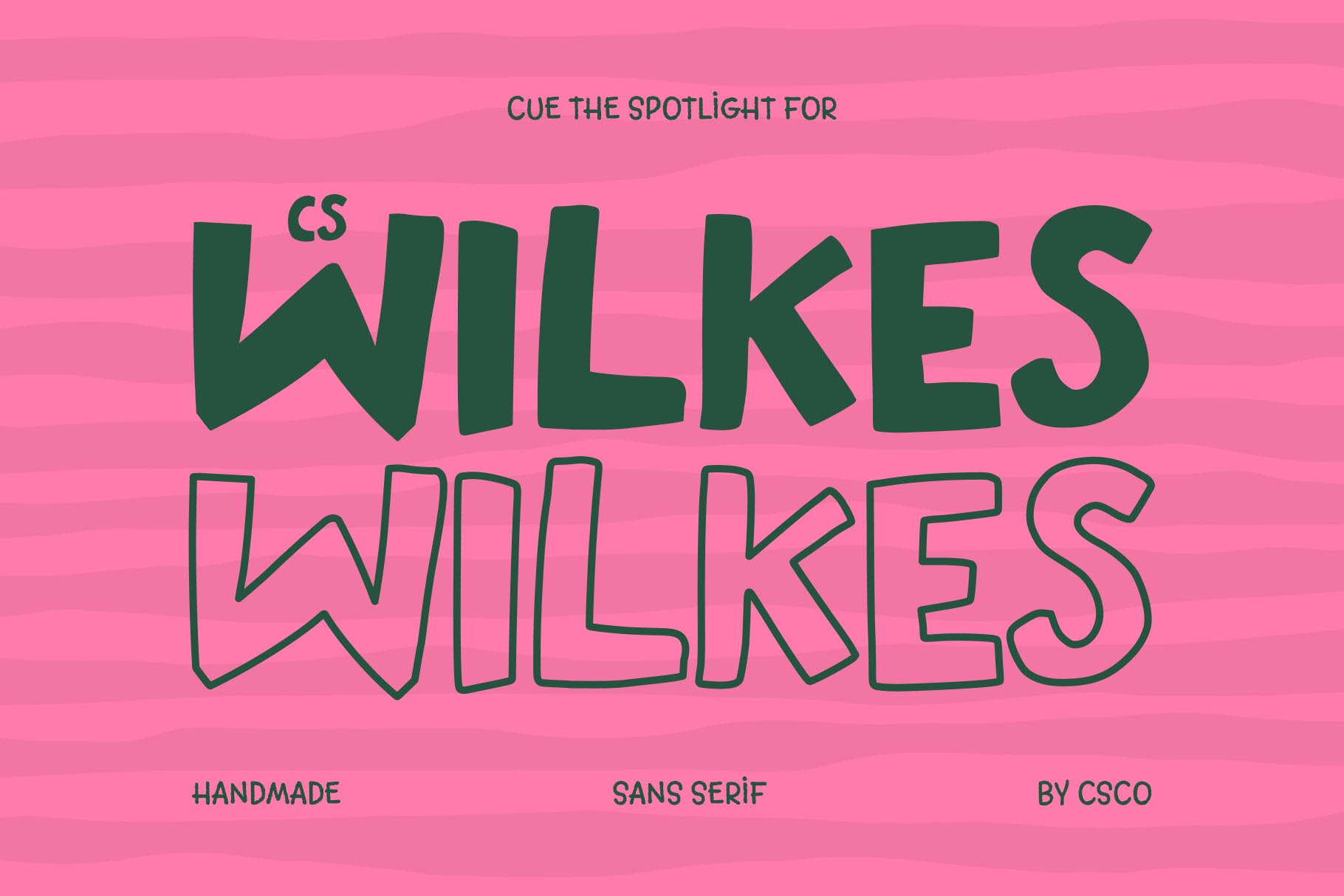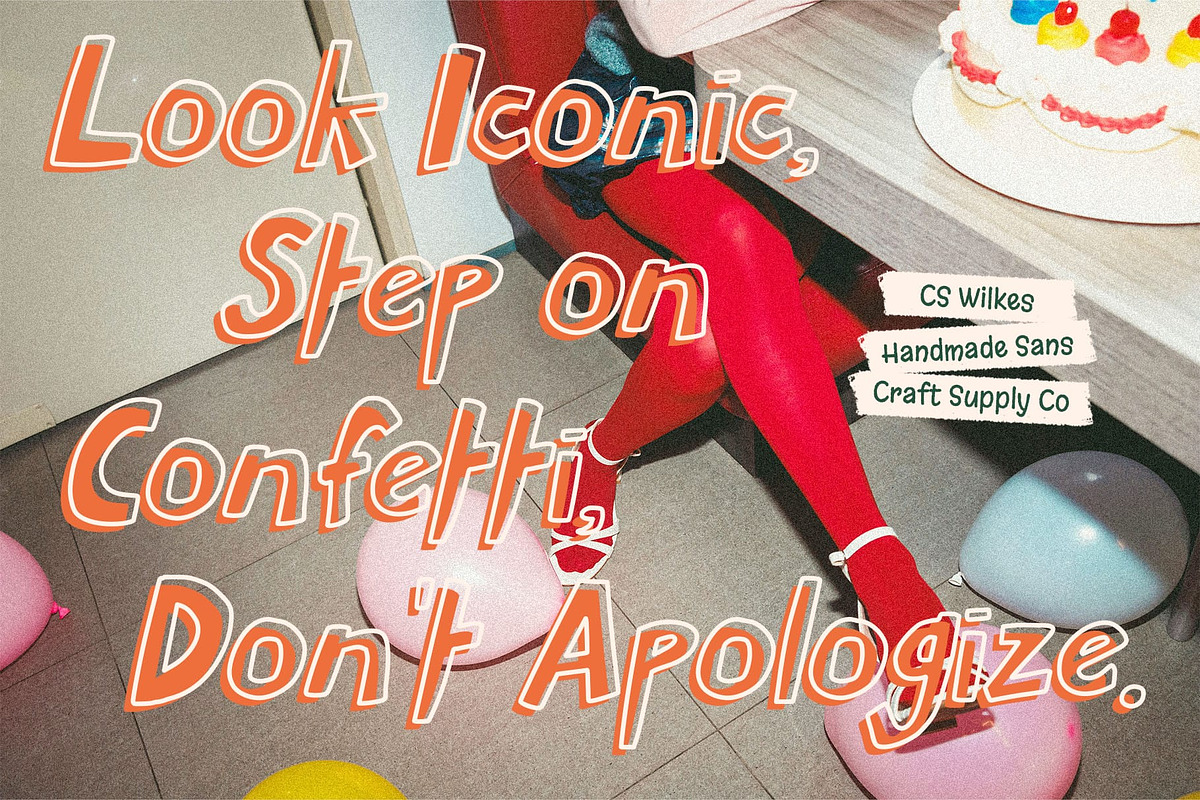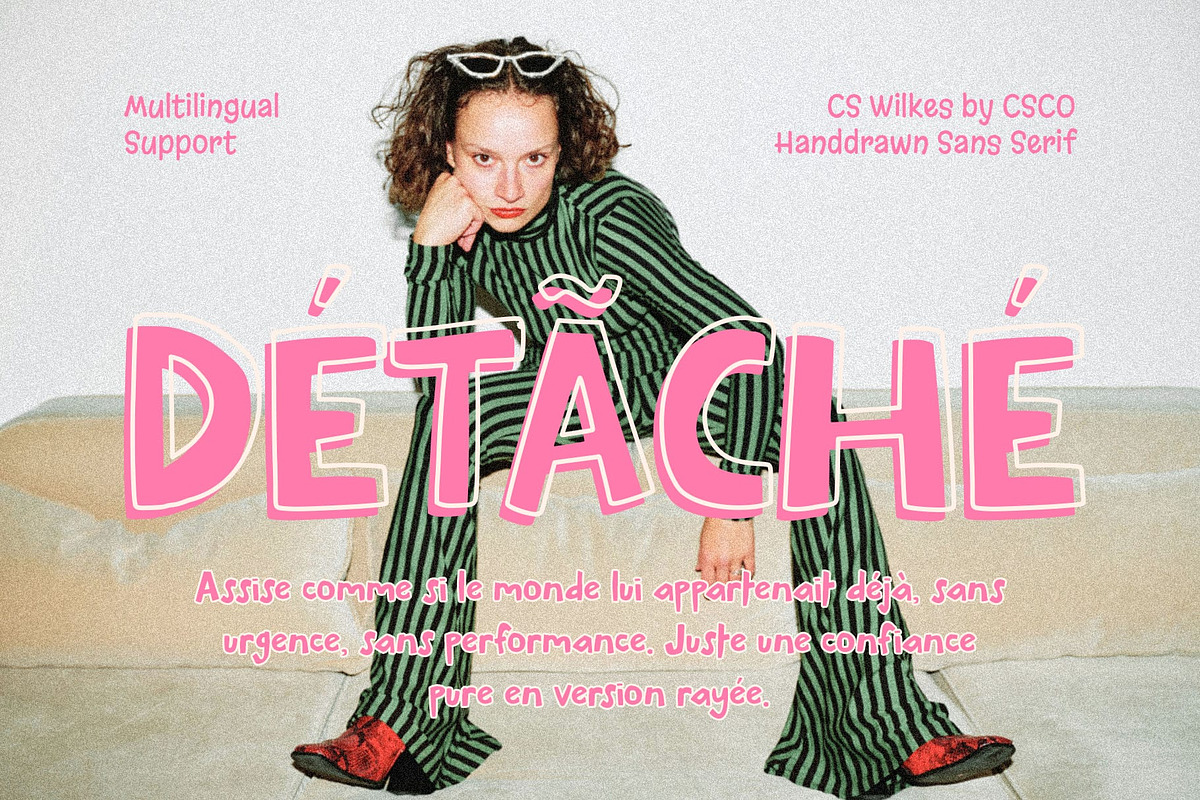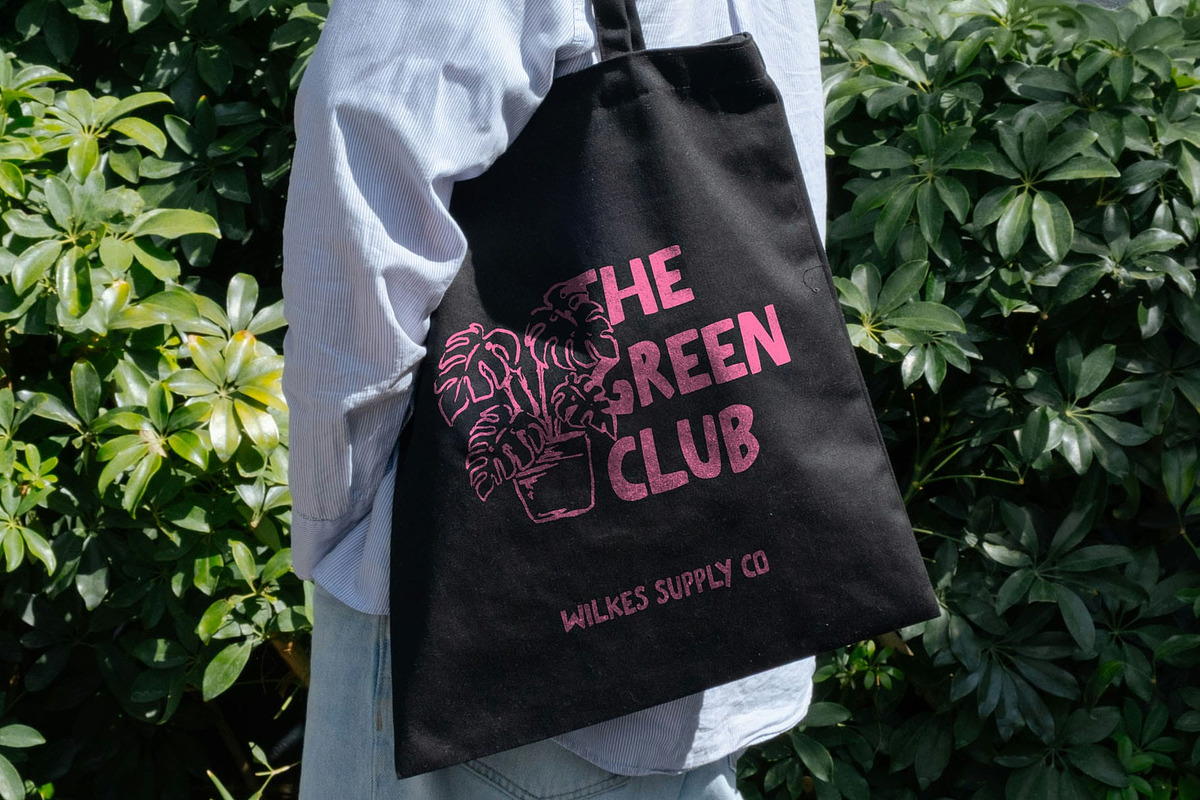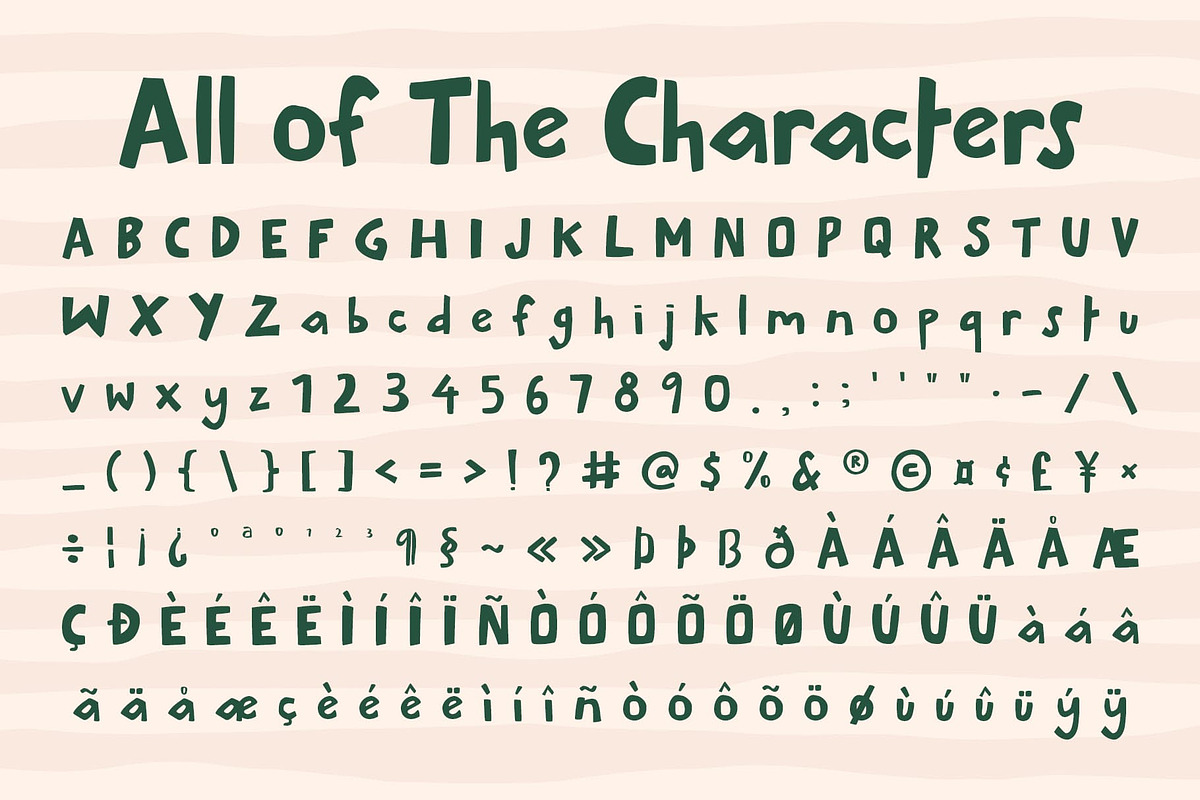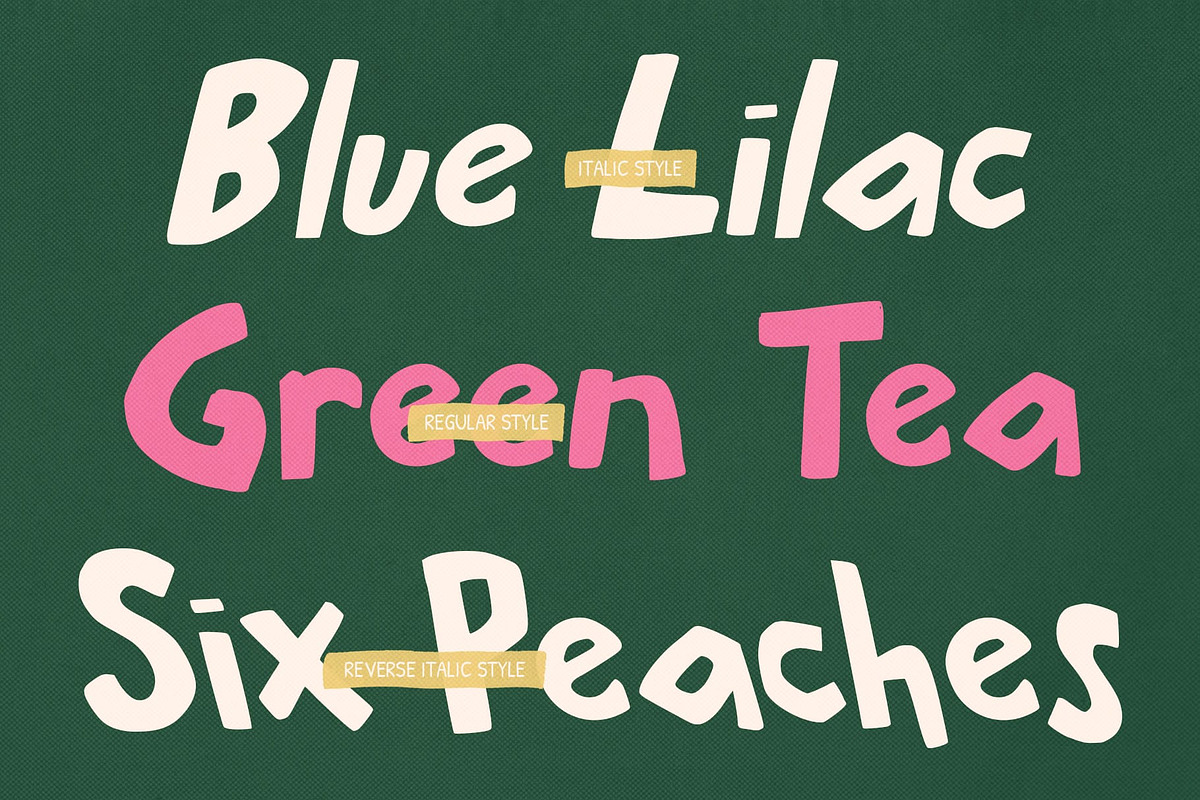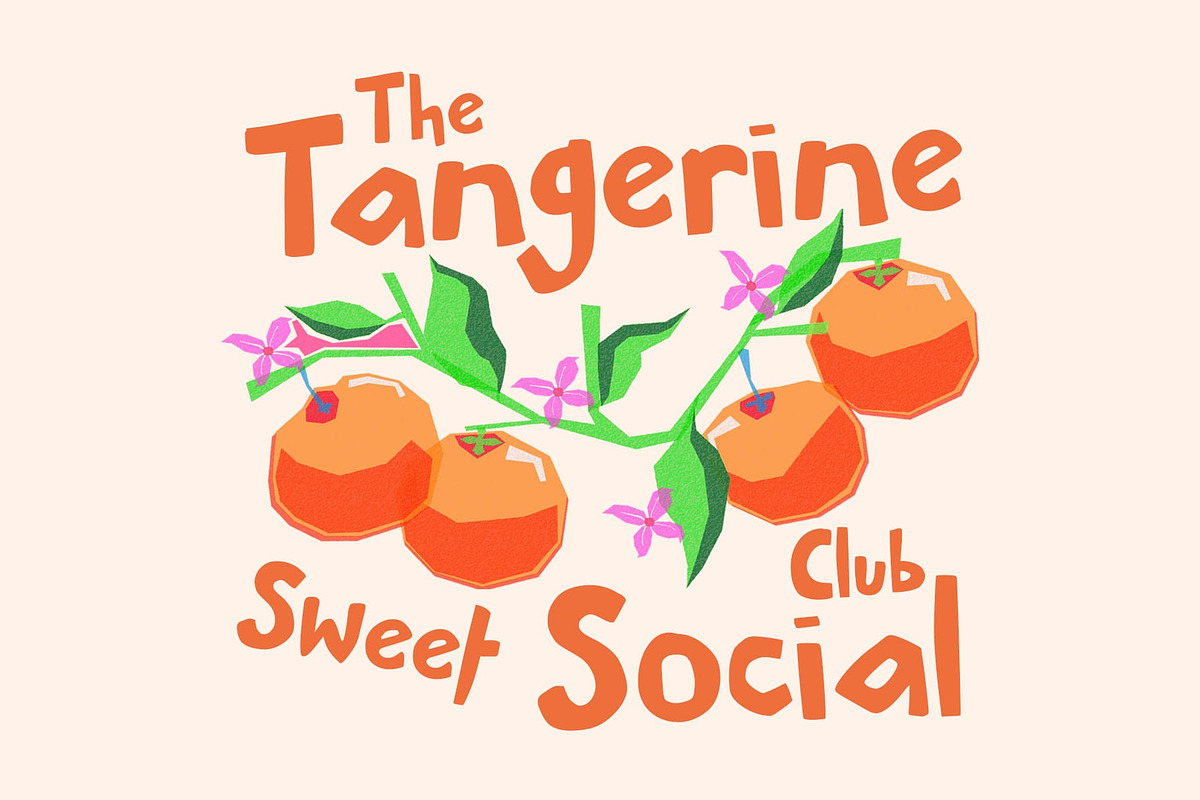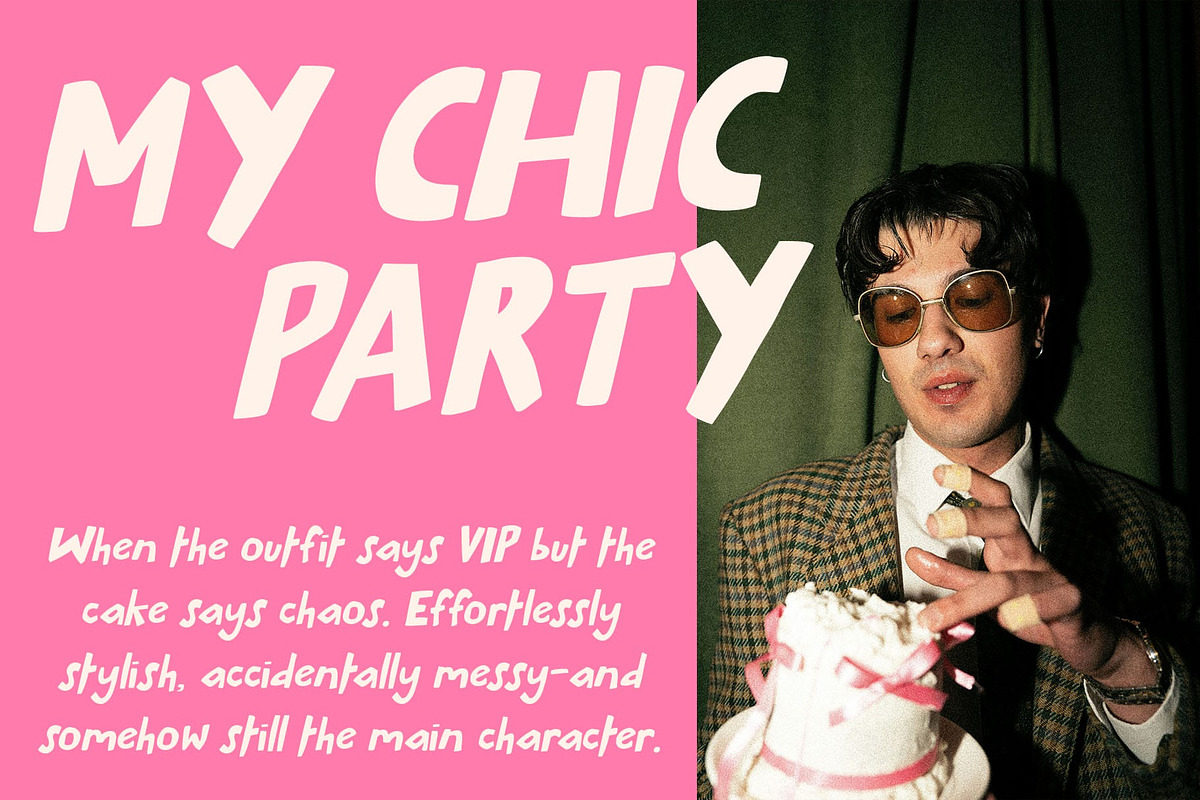
CS Wilkes – Fun Display Font
CS Wilkes – Fun Display Font with Quirky Charm
Playful Design with a Friendly Personality This is a fun and energetic display font that radiates charm through its quirky, cute, and friendly shapes. Designed to capture a cheerful and imaginative spirit, it brings a sense of joy and spontaneity to any design project.
Quirky Shapes with Playful Balance Each letter in this font is thoughtfully crafted with soft curves and expressive details, creating a sense of motion and warmth. The font’s imperfect yet balanced form gives it a hand-drawn feel, perfect for greeting cards, kids’ branding, or lifestyle products that need a personal and approachable tone.
Perfect for Youthful and Creative Visuals From social media posts and packaging to posters and children’s materials, this font adds a delightful spark of creativity. Its playful rhythm and inviting shapes make it ideal for designs that aim to feel lively, modern, and full of character.
Versatile for Fun and Expressive Branding This font blends modern simplicity with whimsical energy, allowing it to adapt across a variety of themes. Whether used in titles, headlines, or logos, it effortlessly stands out while maintaining a friendly, inclusive vibe.